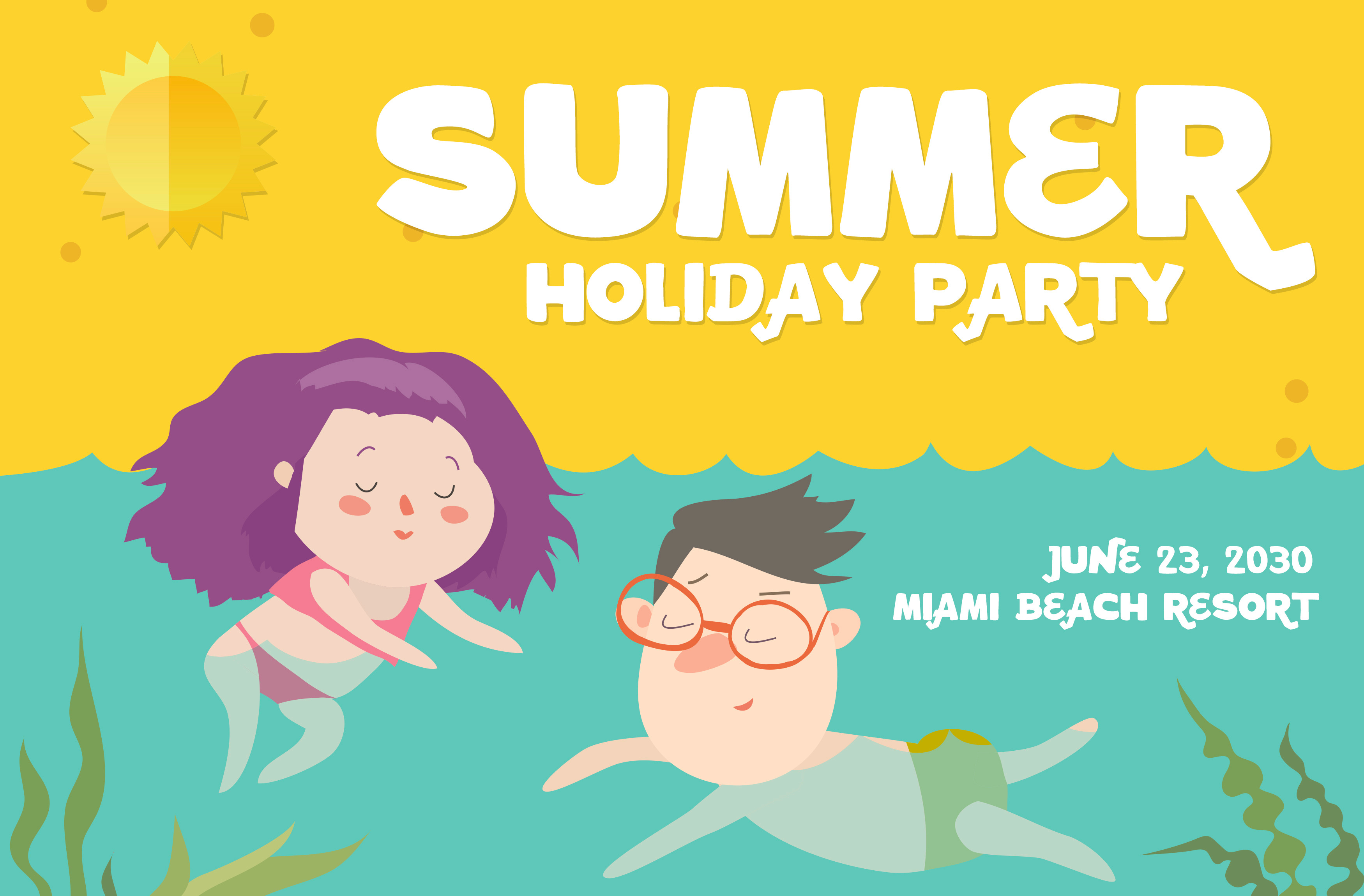
Kapatool Summer Font
Introducing Kapatool fun display font... the best look for any creative playful lettering. The type comes with different approach and bring happiness in your visual concept. It's available in Caps and lowercase include numeric and punctuation.
Type Features
- Caps
- Numeric